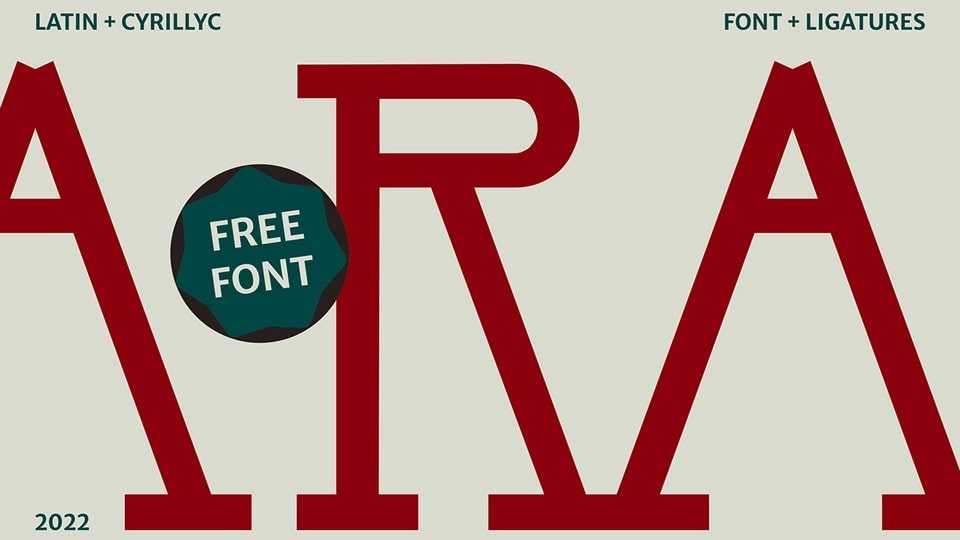
Download Parajanov font, a display typeface inspired by the visionary films of Sergei Parajanov. Each letter is crafted from symbols, patterns, and visual motifs found in his works.